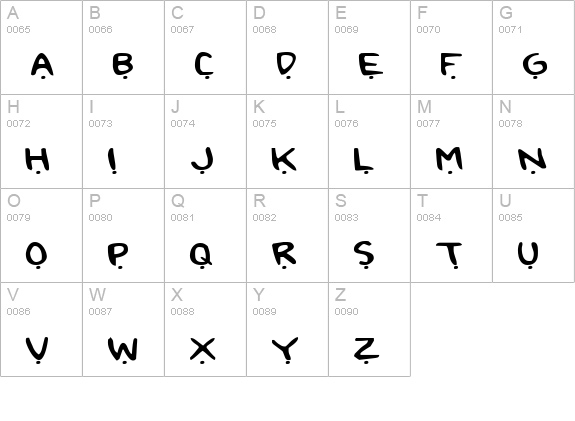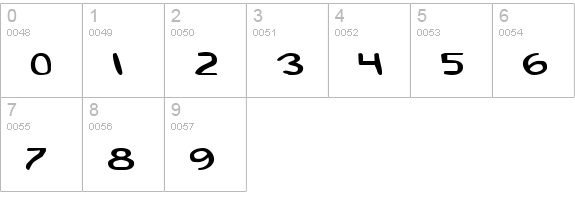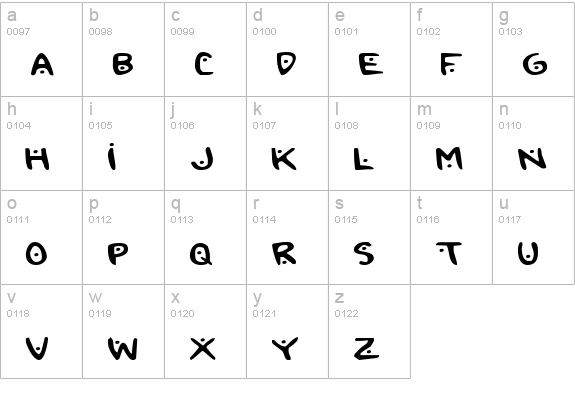
2Toon2 Expanded Font Details
2Toon2 Expanded is a distinctive, extended-width variant in the 2Toon2 typeface family \xE2\x80\x94 well suited to design and typography projects.
2Toon2 Expanded is a whimsical and playful font that adds a touch of fun to any design project. With its bold and rounded letters, this font is perfect for creating eye-catching headlines, posters, invitations, and more. The exaggerated spacing and elongated forms give 2Toon2 Expanded a unique and dynamic look that is sure to stand out. This font is freely available to download at FontsMarket.com, making it easily accessible for designers looking to add a creative twist to their work. Whether you're creating a children's book, a party invitation, or a fun social media graphic, 2Toon2 Expanded is a versatile choice that will bring a sense of joy and lightheartedness to your designs. Let your imagination run wild with this free and playful font!